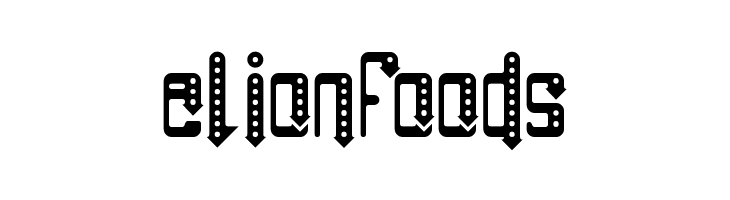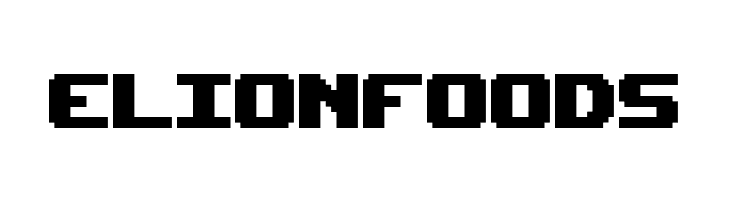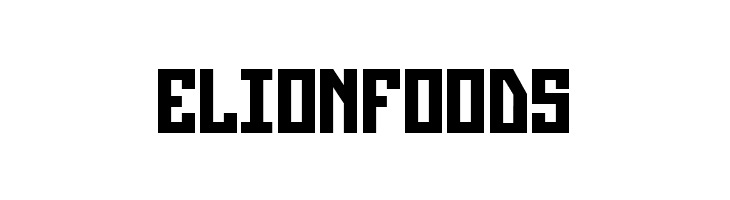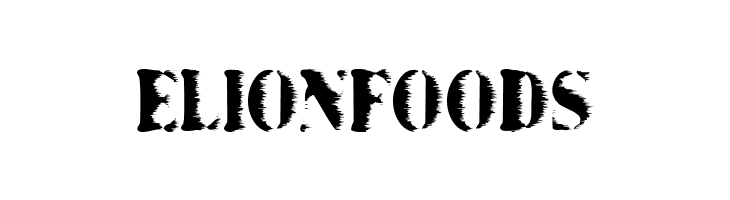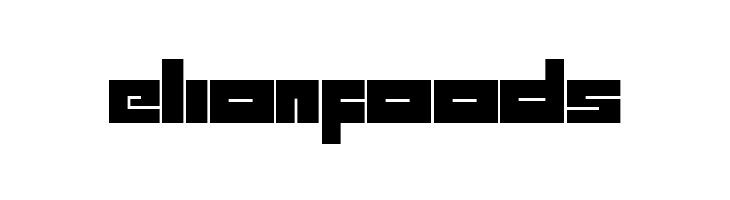
A decorative font styled with interconnected chain links for a bold, industrial look.
A geometric, maze-like font with a futuristic, digital aesthetic.
A bold, geometric font with a futuristic, digital aesthetic.
A bold, jagged font with a rebellious, distressed aesthetic.
A bold, geometric font with a futuristic, digital aesthetic.
A bold, pierced font with a modern, industrial aesthetic.
A bold, geometric font with a futuristic and industrial aesthetic.
A bold, geometric font with a futuristic, digital aesthetic.